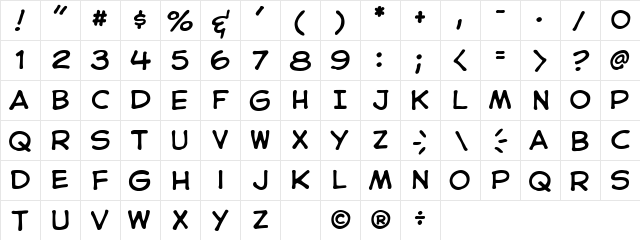
CC Astro City Regular Free Font
CC Astro City Regular
Design Context for CC Astro City
CC Astro City is a composed and adaptable typeface that performs quietly and consistently across a wide range of design contexts.